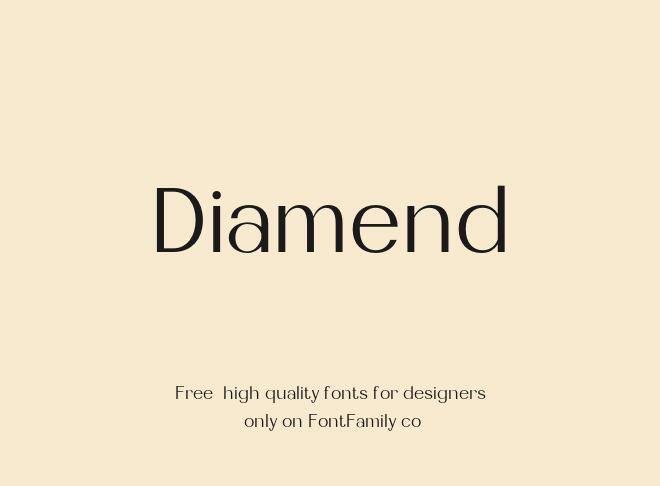
Diamend Font
Diamend Font is a modern and geometric typeface that exudes style and sophistication. Inspired by the precision of diamonds, this font has sharp edges and clean lines that make it perfect for high-impact designs. Its unique character makes it stand out in logos, headlines, branding, and other display purposes. Diamend Font is reminiscent of popular fonts like Futura and Avant Garde, yet it carves out its own space with its distinctive style. This font is a great choice for designers who want to bring a modern and edgy vibe to their projects. Its free personal use license makes it accessible for everyone, allowing designers to experiment and create stunning visuals. With Diamend Font, your designs will never fade into the background, just like the precious gem it's named after.